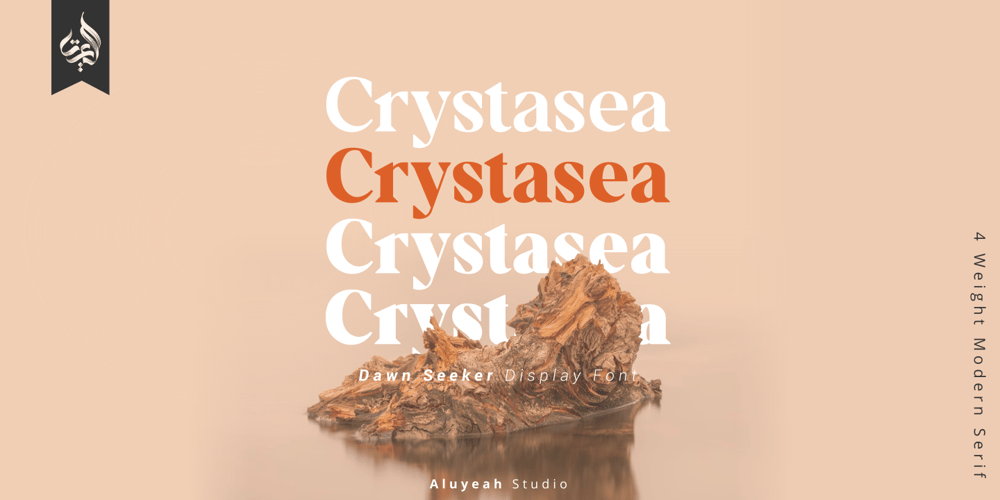
Al Crystasea Font Family was designed by Linggar Sundoro and published by Aluyeah Studio. Al Crystasea contains 4 styles and family package options. Crystasea, a Dawn Seeker Display Serif Font with Stunning 4 weight Style. Very suitable for magazine, headline, website, ads, product package and all type of design project you have. Features:OpenType supportMultilingual support (15 languages)PUA Encoded